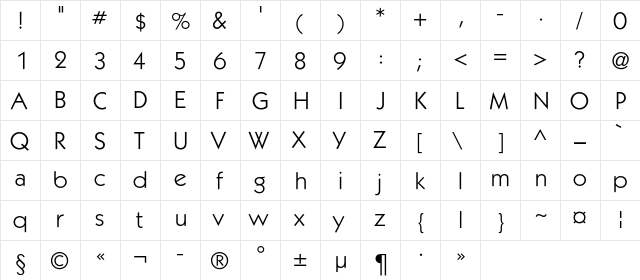
Kabel BookC Regular
Design Context for Kabel BookC Typeface
Kabel BookC is a composed and adaptable typeface that performs quietly and consistently across a wide range of design contexts.